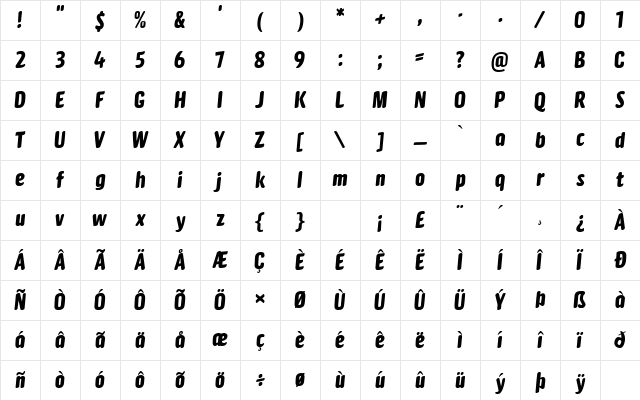
A Lame Bee Regular
Design Context for A Lame Bee
A Lame Bee is a composed and adaptable typeface that performs quietly and consistently across a wide range of design contexts.